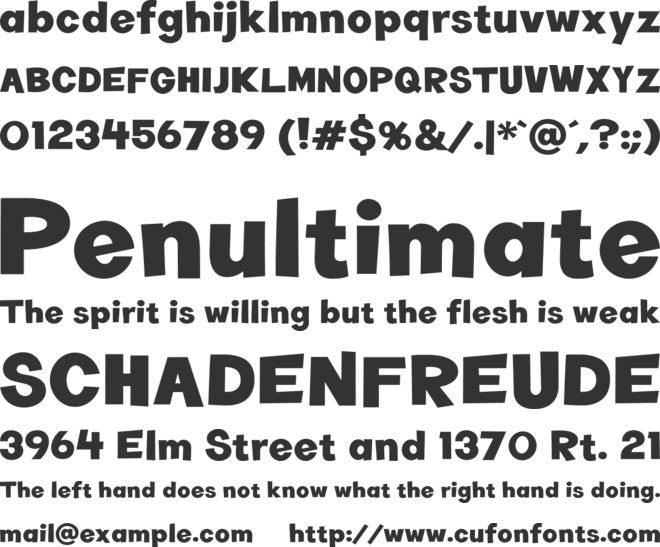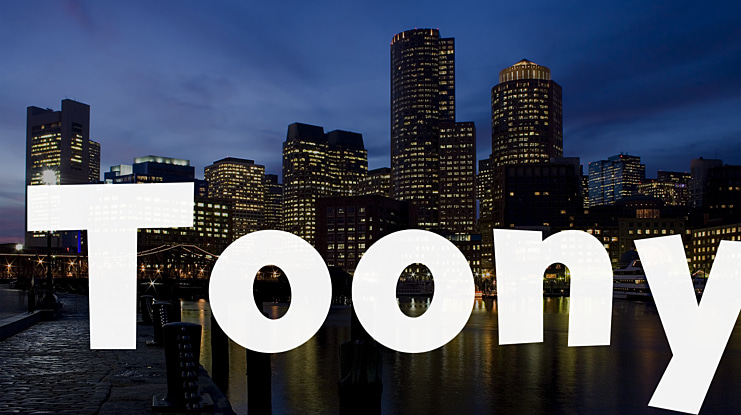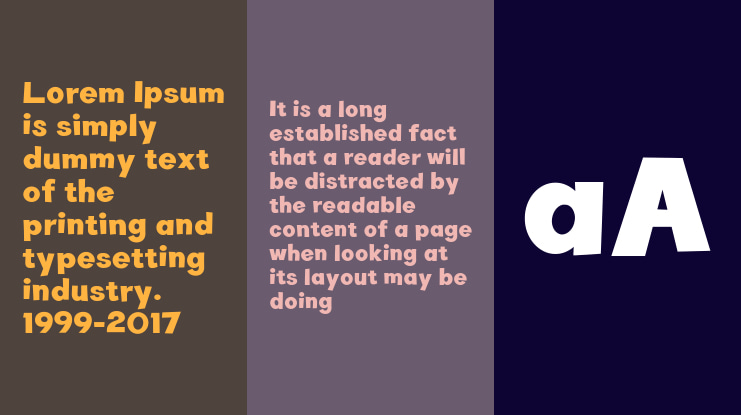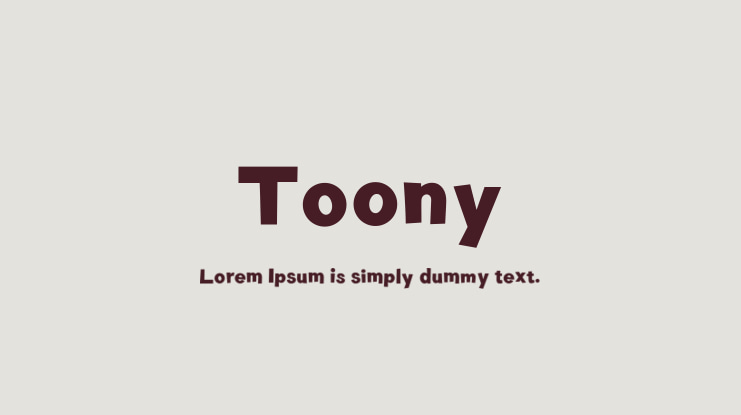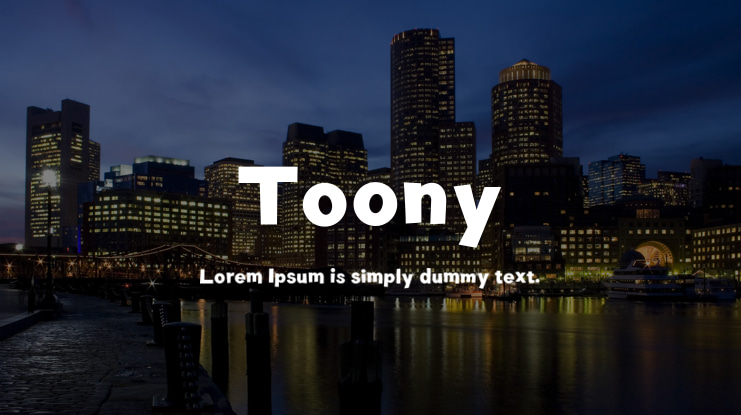
Toony Font
Daniel P. Lyons
Originally designed by Tim Goldman (as uppercases, numbers and punctuations only), extended with contextual alternates, extra punctuation and symbols.